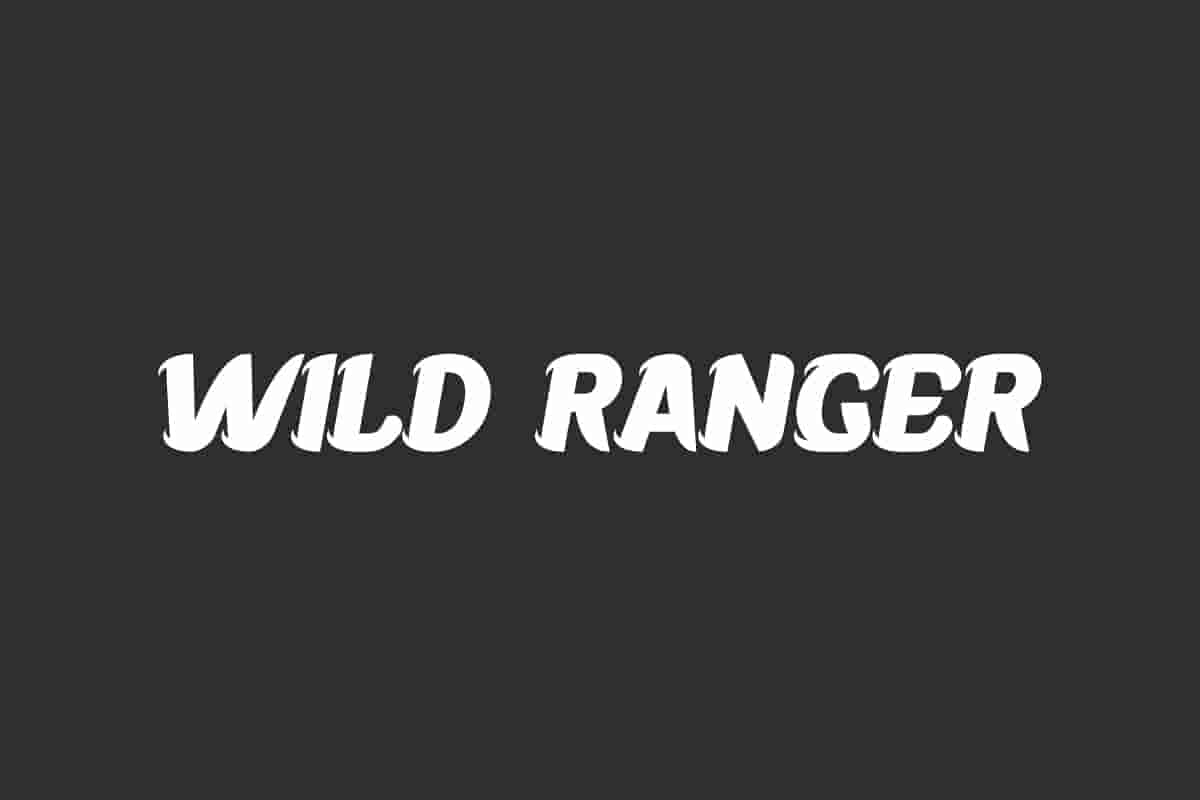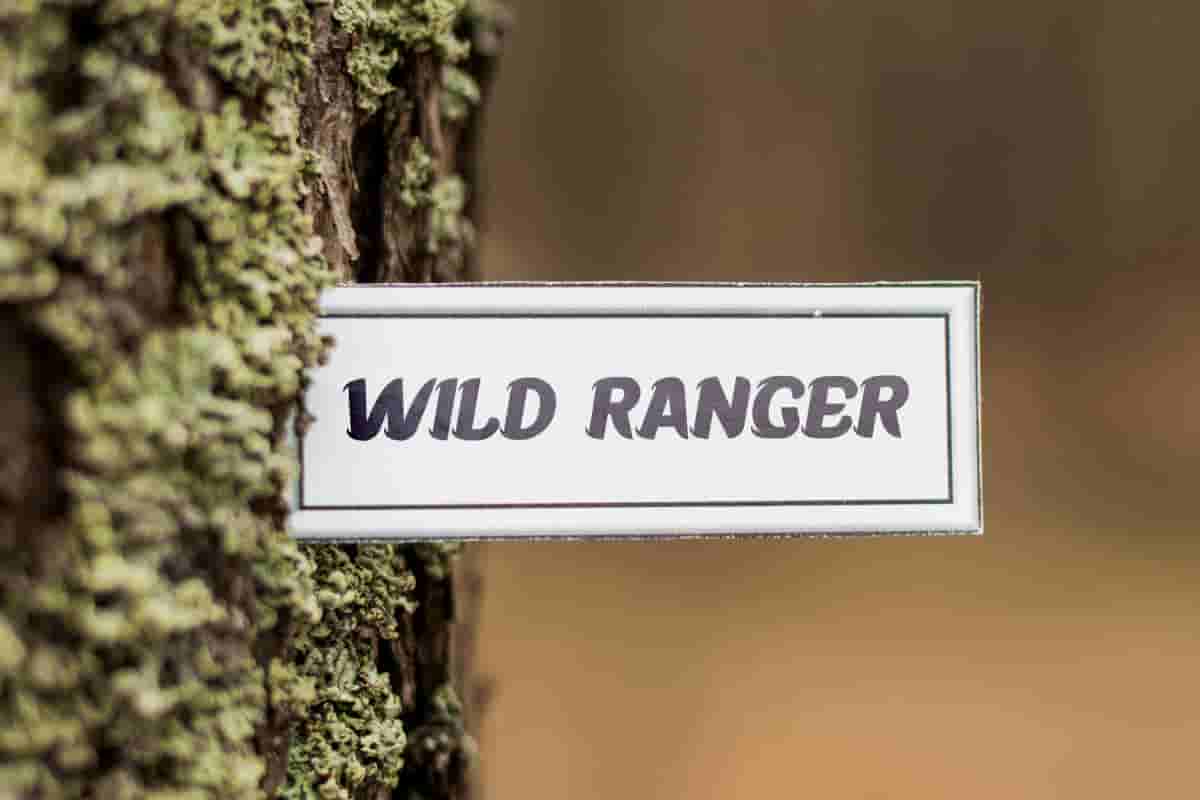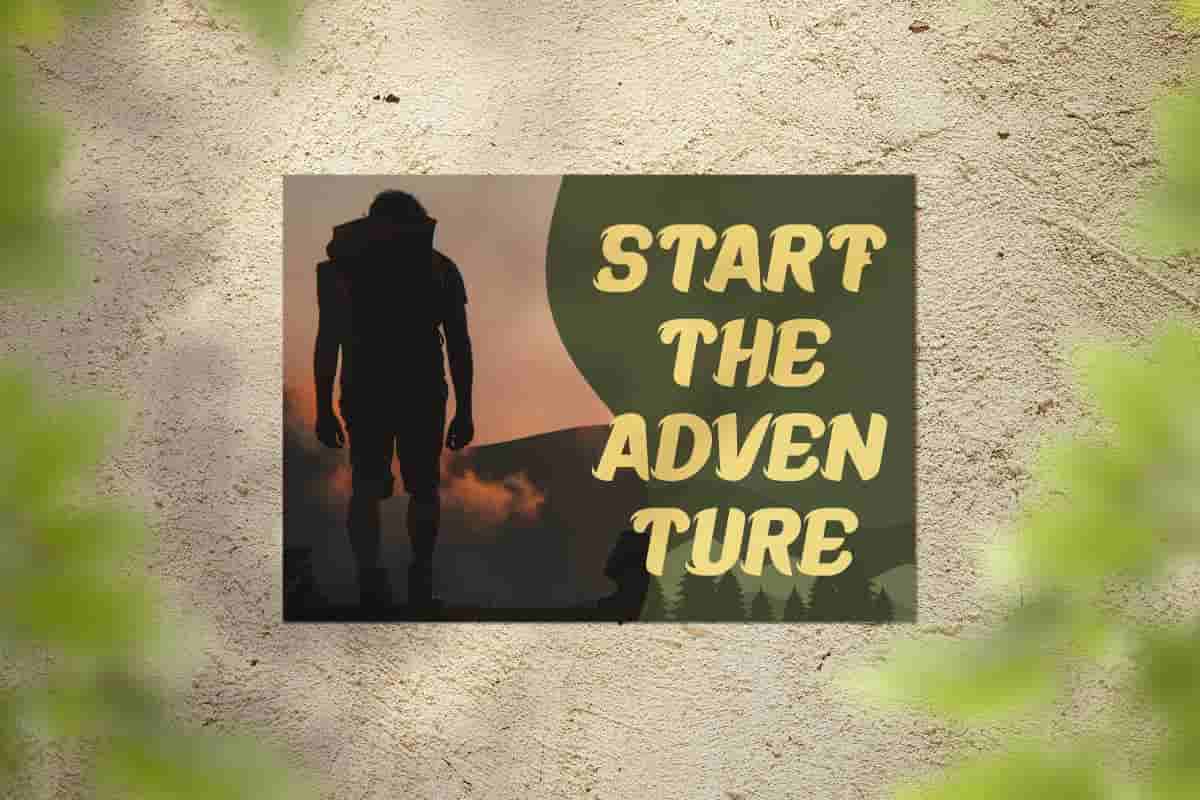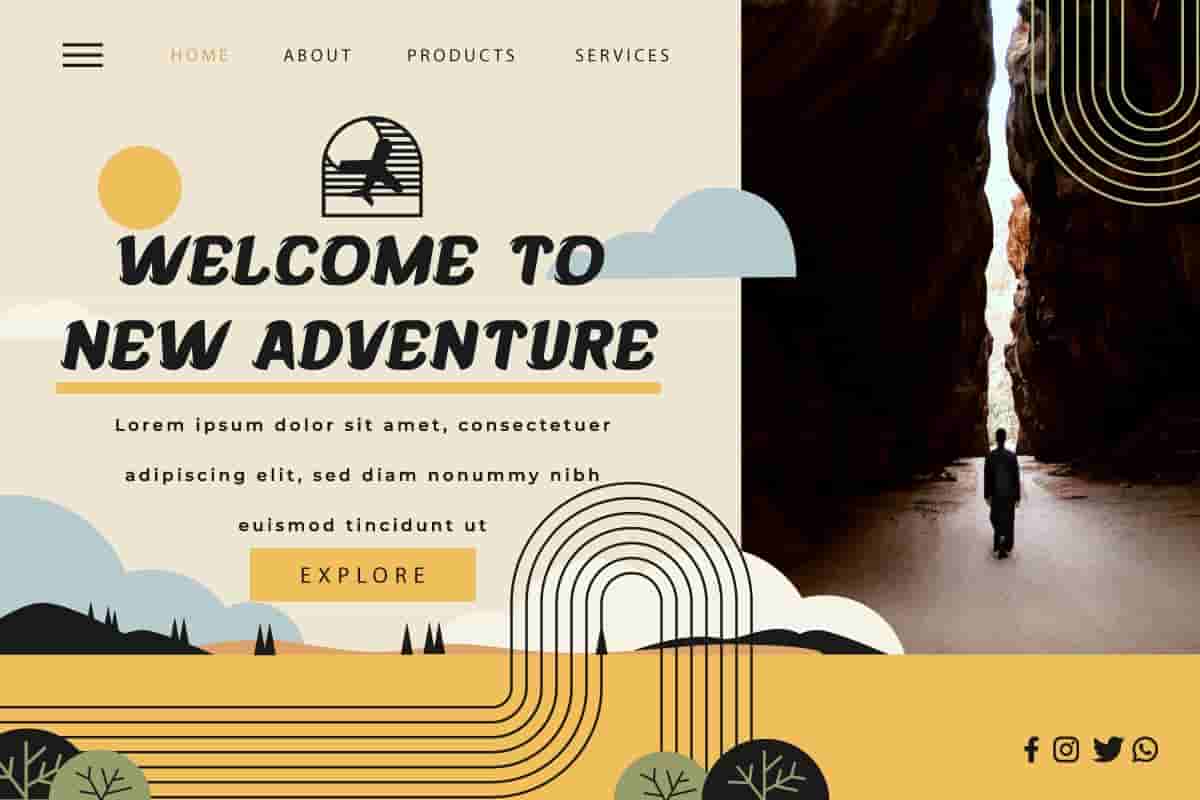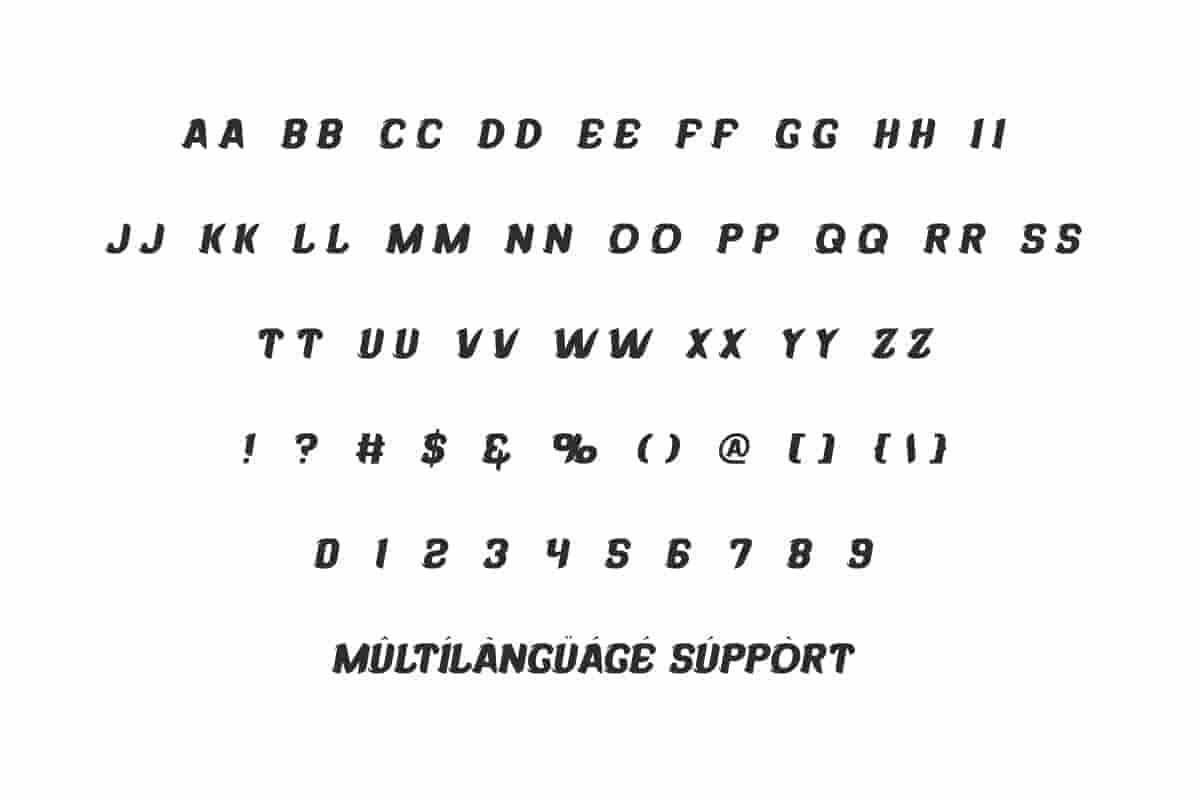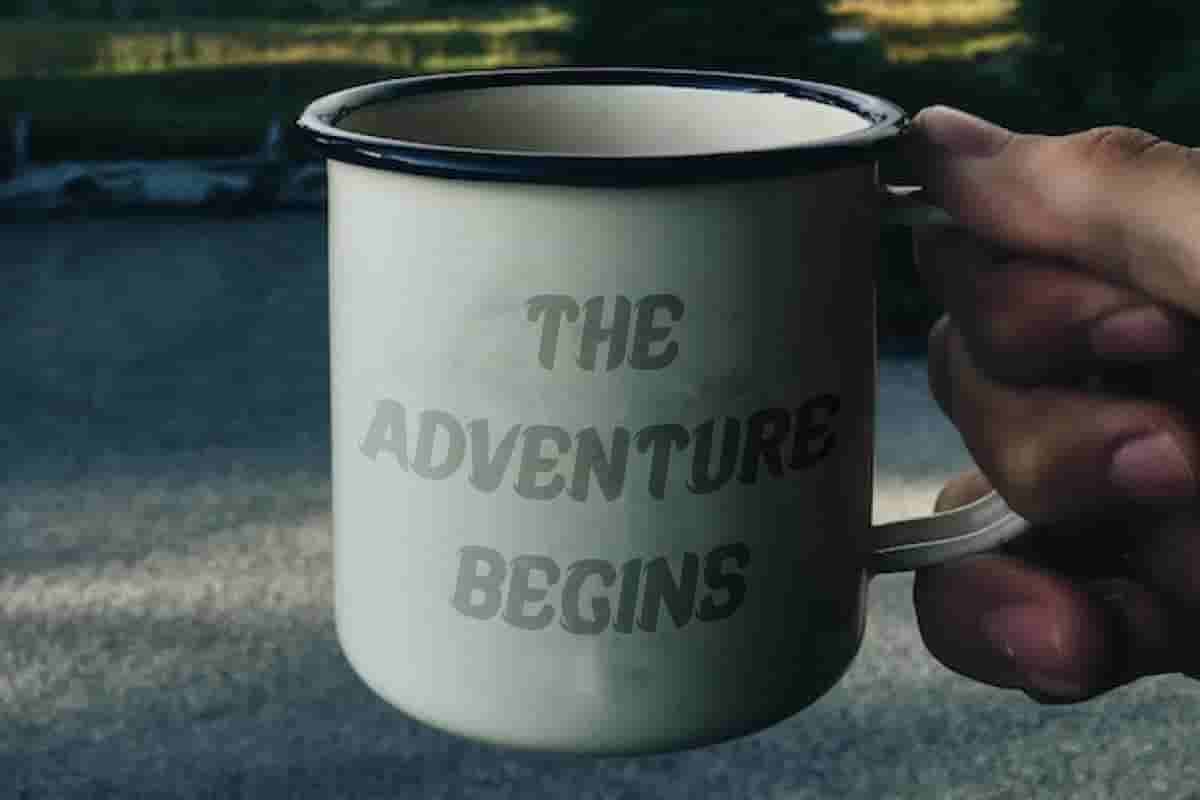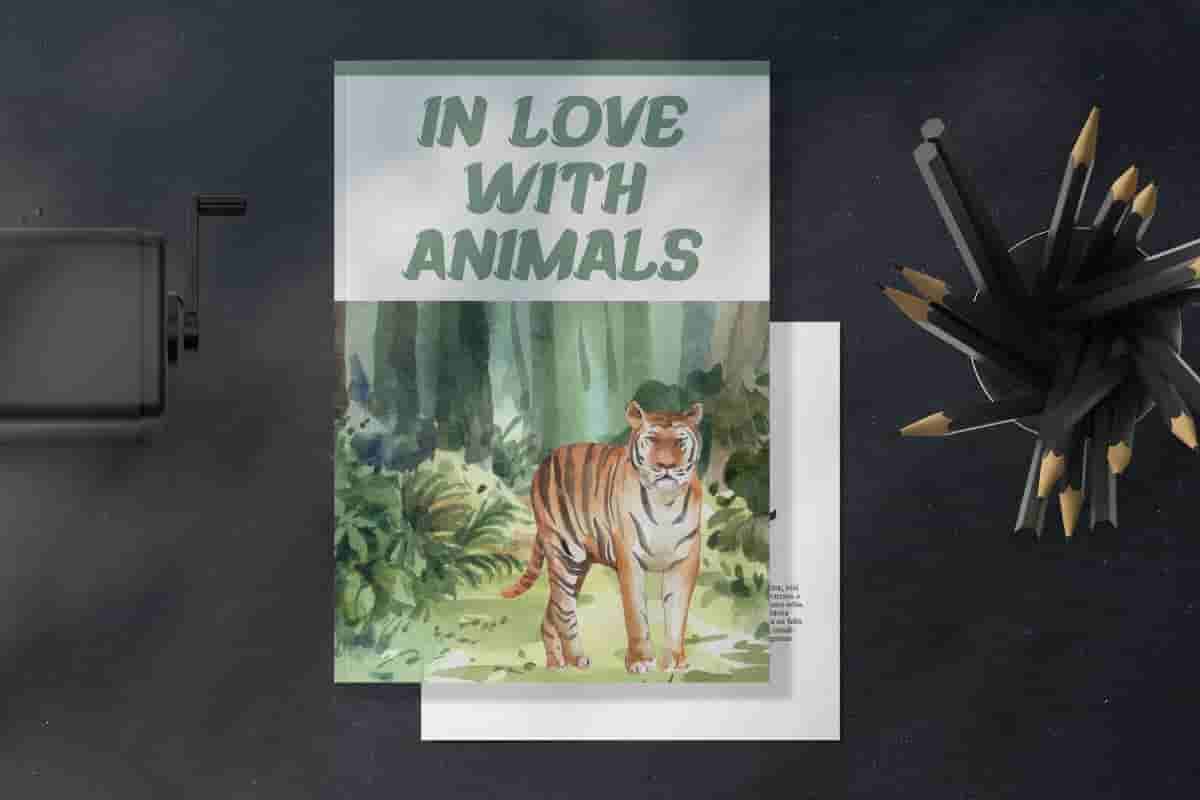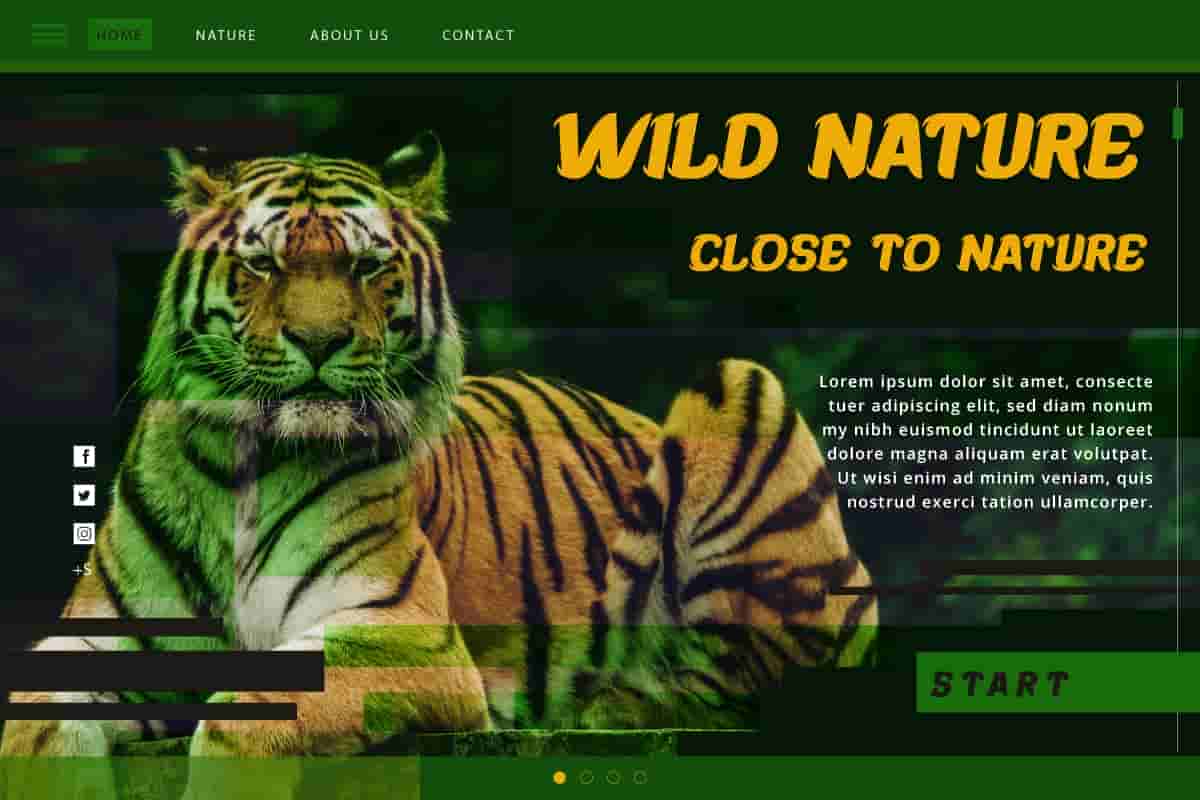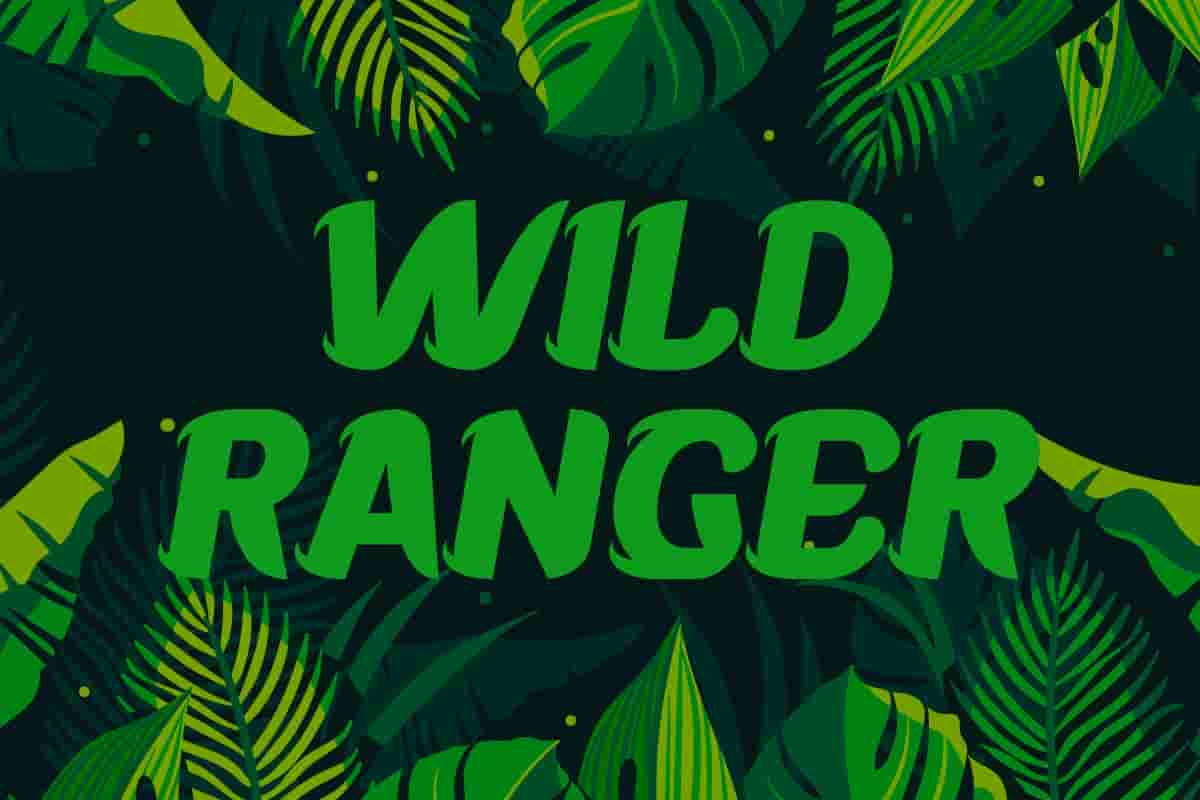
Unleash Adventure in Every Word with Wild Ranger Display Font!
Where Rugged Design Meets Timeless Typography
A Bold Display Font Duo – Sans & Serif in Perfect Harmony
Looking for a font that speaks strength, character, and adventure? Say hello to Wild Ranger — a powerful display font duo featuring Sans and Serif styles designed for standout visuals and bold storytelling.
Wild Ranger Font is a fun, bold and unique display font inspired from games and zoo movies. This font can make your design look bold and read clearly to convey the message within. It will suits many designs, such as brochure, cover, custom design, gift box, invitation, label, menu, poster, product packaging, quote, screen printing, signage, stationery, website, and more!
Wild Ranger Font includes full set of ALL CAPS for Uppercase and Lowercase Basic Characters, Numerals, and Punctuation. This font is inspired by the wild and strong nuances of nature, so it will be suitable for many industries, such as advertising, café, event or festival, fashion, furniture, handicraft, kids stuff, sports, etc.